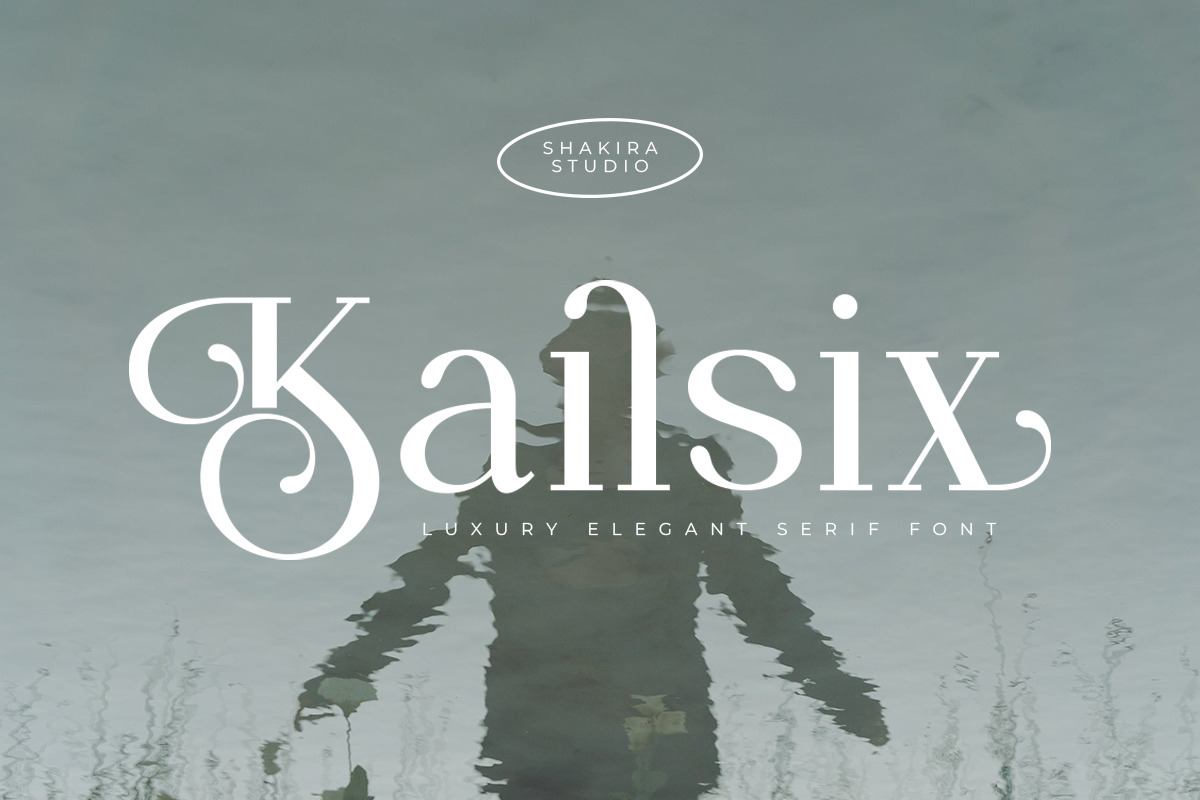
Kailsix - Luxury Elegant Serif Font Free Download is a refined and sophisticated typeface designed for high-end branding, editorial layouts, and elegant visual storytelling. With its graceful serifs, stylish ligatures, and delicate curves, Kailsix instantly elevates any design it touches. It’s the perfect choice for luxury product packaging, fashion magazines, invitations, and upscale web design.
This font exudes class and exclusivity, making it a favorite among designers aiming to create a polished, premium look. The attention to detail in every letterform makes Kailsix - Luxury Elegant Serif Font Free Download stand out, even in minimalist layouts. Its readability pairs beautifully with its ornate style, offering both function and flair.